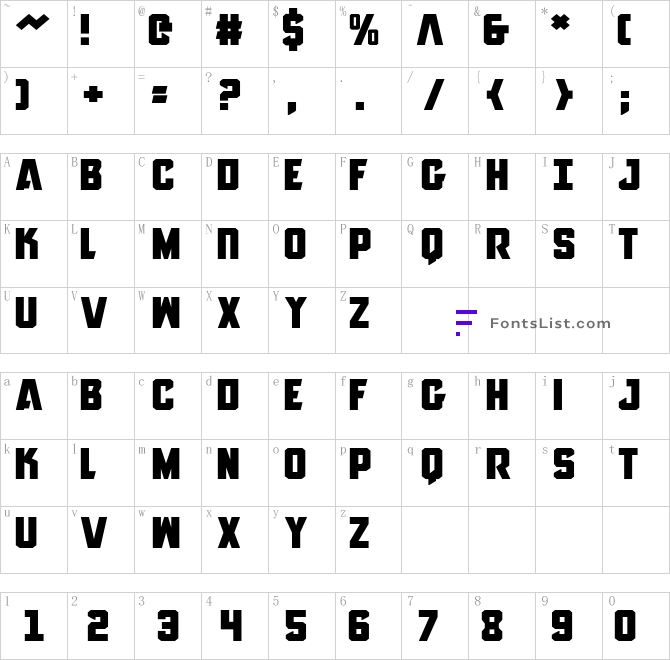
- Font Name:Anitlles Expanded
Anitlles-Expanded.ttf is a very beautiful artistic font, Anitlles-Expanded.ttf is widely used in the design and printing of various books and pictures,Anitlles-Expanded.ttf has a strong visual impact,Anitlles-Expanded.ttf is a commonly used font in newspapers, magazines and books, and is used in posters, e-commerce Poster design, store design, logo design, font design and other fields.Anitlles-Expanded.